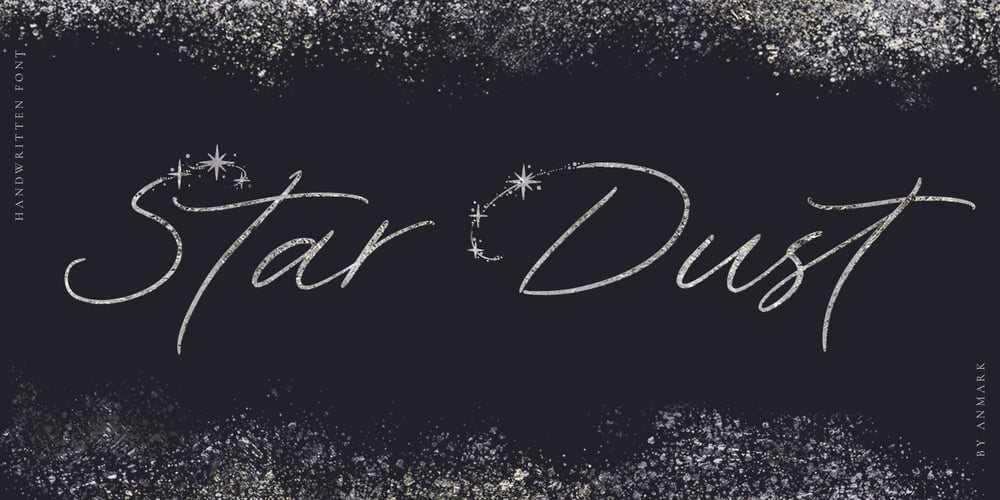
Star Dust Font Family was designed by Anna Markovets and published by Anmark. Star Dust contains 2 styles and family package options. Star Dust Regular is an elegant, decorative, handwritten font. Uppercase letters with glitter and sparks are ideal for your wedding monograms and logos. Use this font for wedding invitation, branding, packaging, magazines, makeup business, social media, quotes, restaurant menu, greeting cards, flyer, banner, web header and many more. Star Dust Clean . This feminine calligraphy font style perfect for wedding design projects, instagram, watermarks, titles, birthday invitation, signatures, letterpress address, jewellery, hotel business and other. You can use it for long texts or short phrases. This font includes stunning ligatures and full set of lowercase alternates to make your text as close to a natural handwritten script as possible.